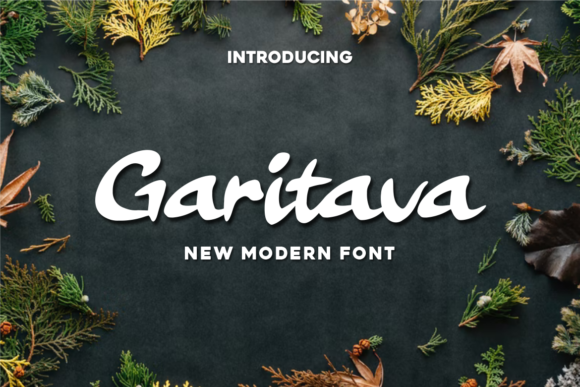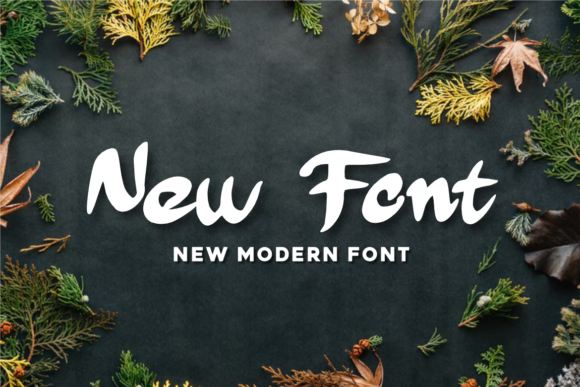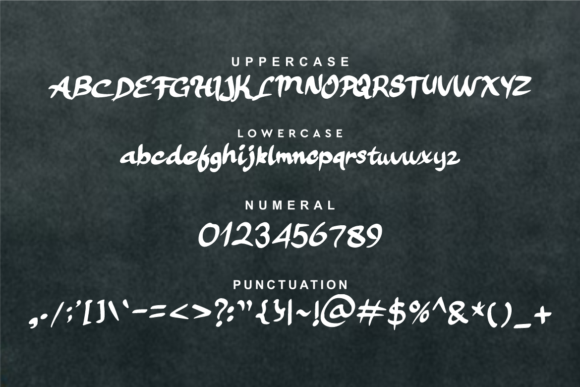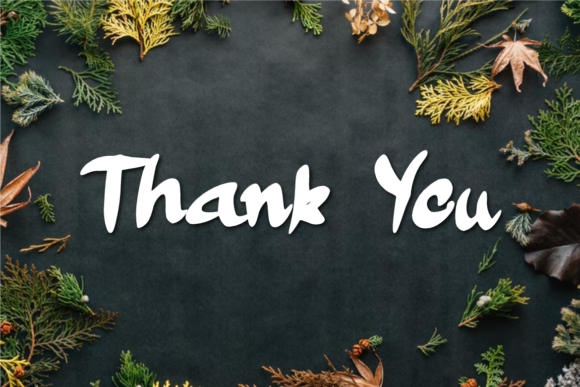
Garitava Font
About Garitava Font
Introducing “Garitava,” a trendy and fashionable script font that effortlessly combines style and sophistication. Defined by its smooth curves and contemporary elegance, Garitava is the epitome of modern chic, making it the perfect choice for fashion branding or editorial designs. With its sleek aesthetic and versatile appeal, Garitava adds a touch of flair to any project, elevating it to new heights of visual appeal.
Garitava’s script font features smooth, flowing lines that exude a sense of grace and refinement. Each letter is meticulously crafted to perfection, creating a cohesive and harmonious design that captivates the eye. Whether used for fashion logos, magazine layouts, or social media graphics, Garitava lends an air of effortless elegance to every composition.
One of the standout features of Garitava is its versatility. This script font seamlessly adapts to a variety of design contexts, from high-end fashion campaigns to casual lifestyle blogs. Its timeless appeal transcends trends, ensuring that your designs remain relevant and impactful for years to come.
When you incorporate Garitava into your projects, you can do so with confidence, knowing that its stylish aesthetic will enhance your visual storytelling. Whether you’re crafting a brand identity for a luxury fashion label or designing an editorial spread for a lifestyle magazine, Garitava provides the perfect balance of sophistication and creativity.
Furthermore, Garitava’s versatility extends to its usability. With its smooth curves and well-defined characters, this script font is easy to read and navigate, ensuring that your message is conveyed clearly and effectively. Additionally, Garitava is compatible with a wide range of design software, making it accessible to designers of all skill levels.
In conclusion, Garitava is more than just a font—it’s a powerful tool for creative expression. With its trendy and fashionable aesthetic, this script font allows you to infuse your designs with style and sophistication. Whether you’re crafting a logo, designing a website, or creating social media graphics, Garitava offers endless possibilities for bringing your vision to life. Embrace the elegance of Garitava and let it inspire your next design masterpiece.